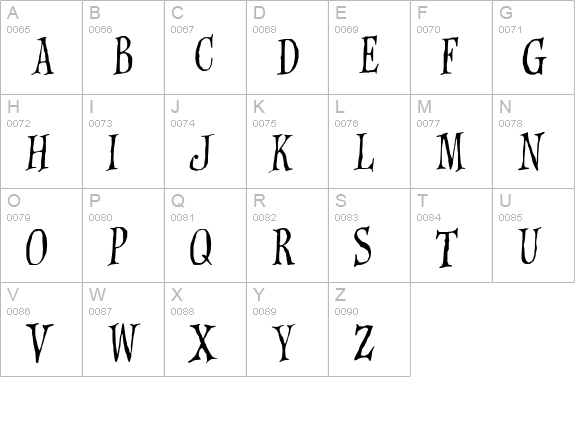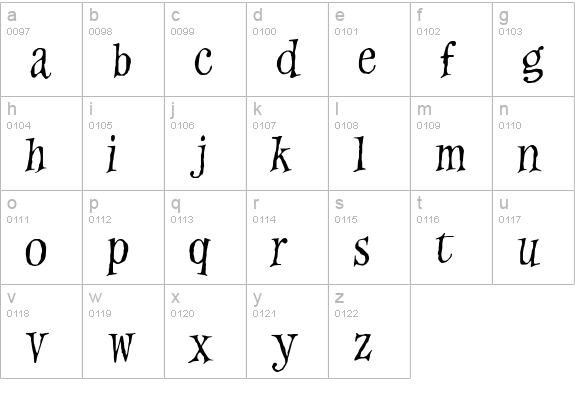
Witches Magic Font Details
Introducing Witches Magic Font, a captivating typeface that will enchant your design projects with its mystical allure. This font is a perfect choice for those seeking to add a touch of magic to their creations, be it spellbinding logos, bewitching headlines, or enchanting invitations. Witches Magic Font features an intricate and elegant design that captures the essence of witchcraft and sorcery. Its unique letterforms are gracefully adorned with delicate swirls and enchanting curves, creating a visually stunning display. With a seamless blend of elegance and mysticism, this font will instantly captivate your audience and transport them to a world of wonder and enchantment. What sets Witches Magic Font apart is its versatility and ease of use. Whether you're a professional designer or a beginner, this font will effortlessly elevate your projects to new heights. It's the perfect choice for book covers, posters, branding materials, social media graphics, and more. The possibilities are endless! And the best part? Witches Magic Font is available for free! You can easily download it at FontsMarket.com, a reliable source for high-quality and visually captivating fonts. With just a few clicks, you'll have access to this enchanting typeface, ready to cast its spell on your designs. So, why wait? Unleash your creativity and embrace the magic of Witches Magic Font. Download it for free at FontsMarket.com and let your imagination soar to new dimensions of enchantment.